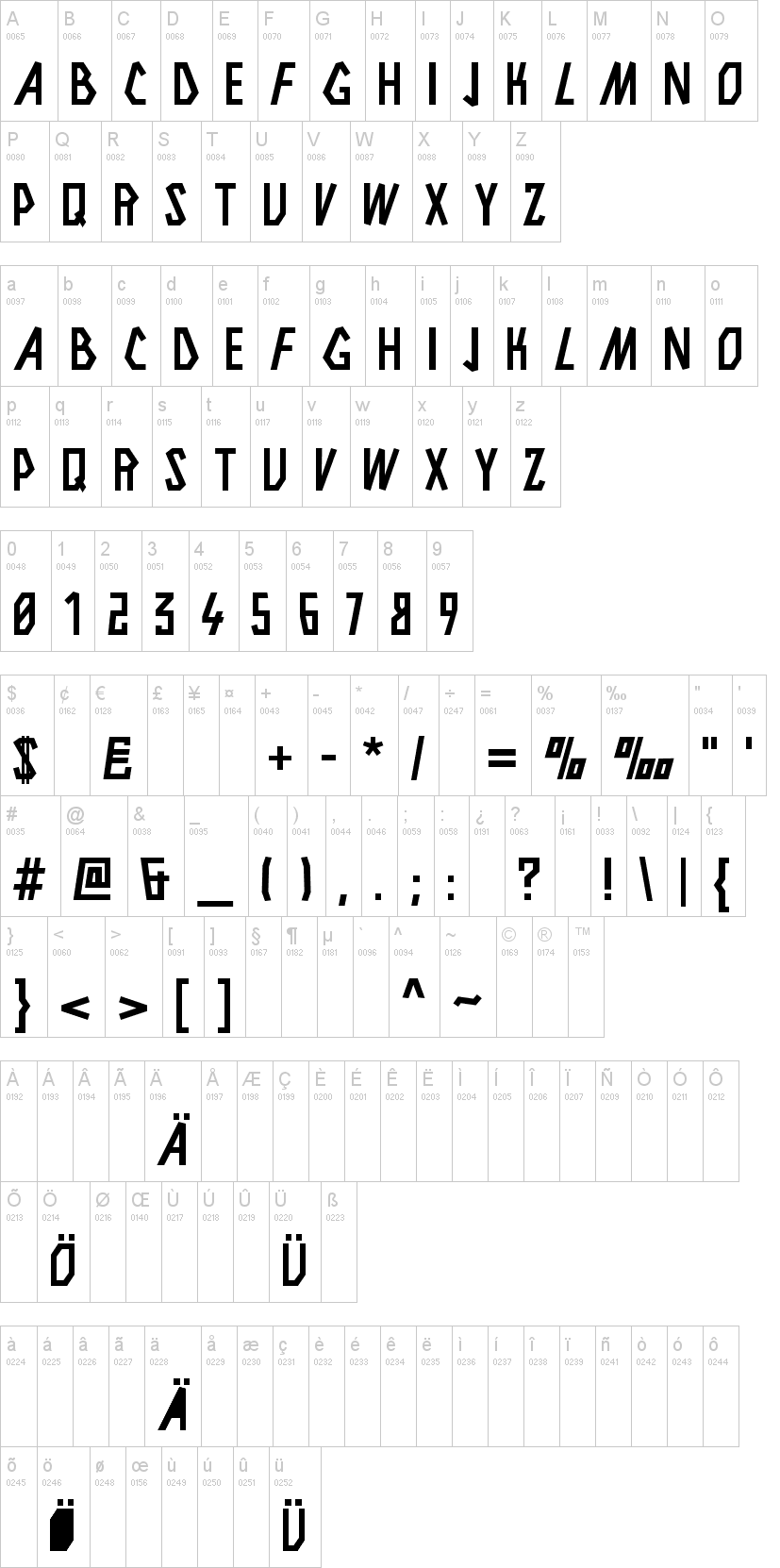
Note of the authorThis font was born when I started to create just some letters for headlines within a creative project. As I started to like it, I created a whole font. I would love to see what you made with it please send me samples: mail@hubertwedel.com Have fun!